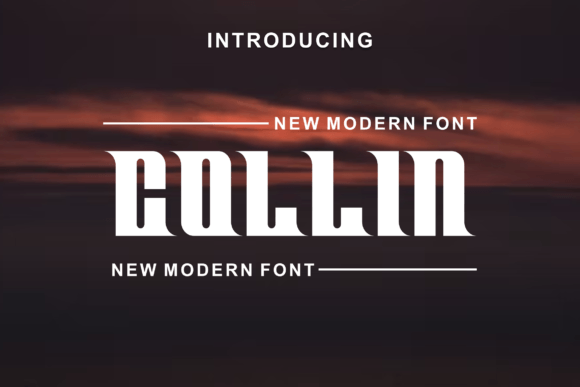
Introducing the Collins Font: Bold, Authentic, and Perfect for Your Branding Needs
Welcome to the world of Collins Font, where boldness and authenticity come together to elevate your branding game. This display font is not just a collection of letters; it's a powerful tool that will transform your creative vision into an unforgettable reality.
From logos that leave a lasting impression to T-shirt designs that speak volumes, Collins Font is your go-to choice when it comes to crafting a unique and captivating brand identity. Its versatility extends beyond the digital realm, making it a stunning choice for creative products that demand attention.
Here's a Sneak Peek into the Allure of Collins Font:
- Its bold and authentic style commands attention, ensuring your messages and designs stand out from the crowd.
- With Collins Font, your branding will shine in a variety of contexts, from online platforms to printed materials.
- Open the doors to limitless possibilities, as Collins Font complements a diverse range of creative projects.
- Unleash your creativity and let Collins Font be your muse, guiding you towards designs that inspire and enchant.
Why Choose Collins Font? Because it's More than Just a Font, It's:
- The Perfect Match for Branding Projects: Logos, T-shirt designs, creative products, and more, Collins Font has got you covered.
- A Versatile Performer: From digital platforms to printed wonders, Collins Font adapts seamlessly to various mediums.
- A Creative Catalyst: Ignite your imagination and explore new design frontiers with Collins Font as your trusted companion.
- A Gateway to Memorable Branding: Create a lasting impression that lingers in the minds of your audience.
Collins Font is not just a font; it's an investment in your brand's future. With its bold and authentic style, versatility across platforms and contexts, and ability to inspire creativity, Collins Font is the key to unlocking your brand's true potential.